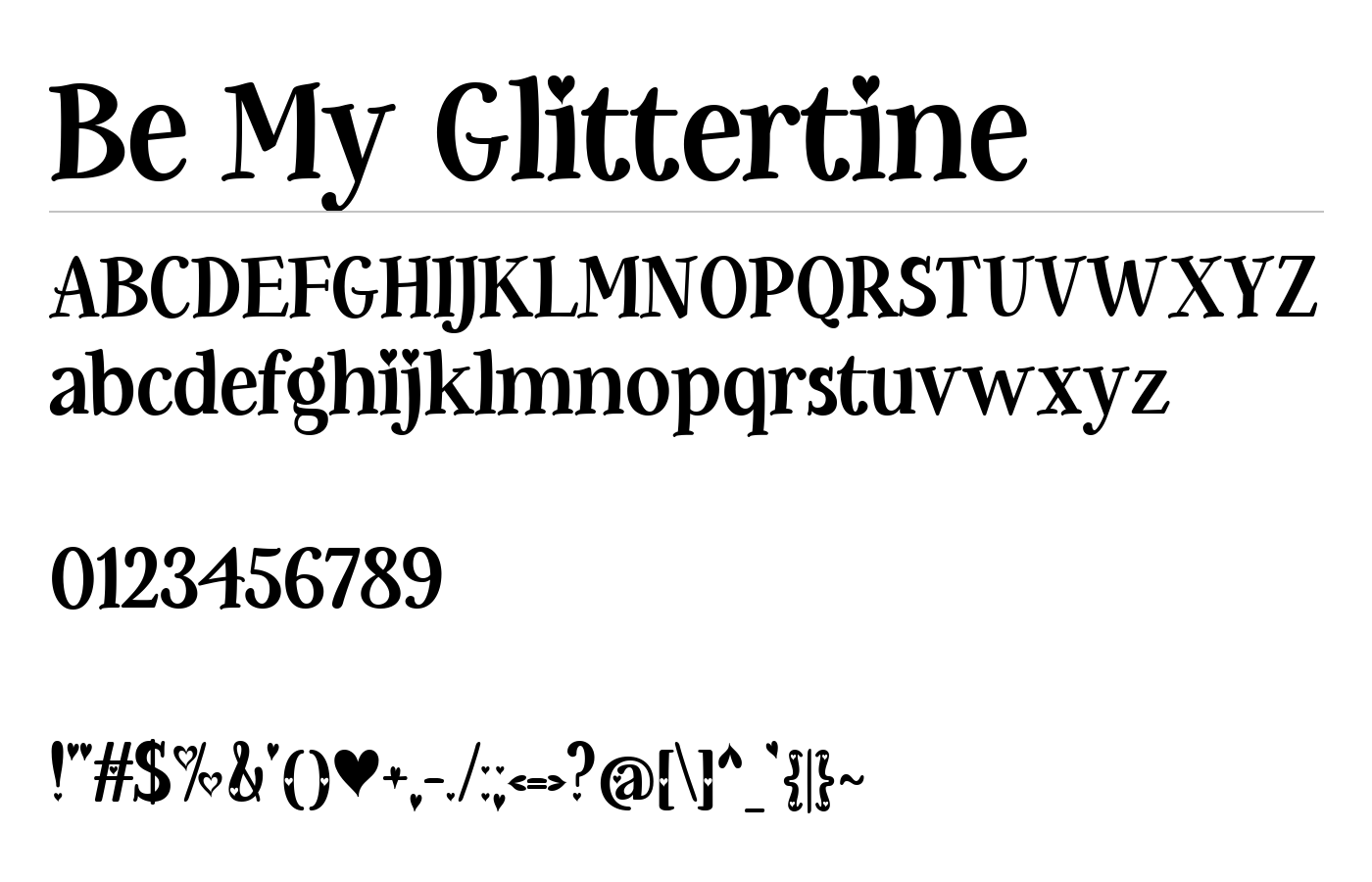
Be My Glittertine is a playful serif font with charming, whimsical details like heart-shaped dots on the i and j, giving it a sweet, romantic personality. Its moderate stroke contrast, slightly condensed letterforms, and a combination of single and double-story characters make it both readable and lively. This font works wonderfully for invitations, greeting cards, children’s books, and branding that aims to convey warmth, fun, and affection.
Be My Glittertine Font
About Be My Glittertine Font